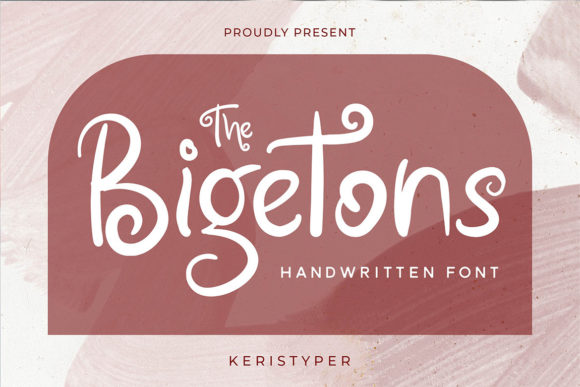
Bigetons Font: The Ultimate Choice for Bold and Fun Designs
Are you looking for a font that can add a touch of boldness and fun to your designs? Look no further than Bigetons Font! Born from a bold and fun style, Bigetons is a versatile font that can be used for a wide range of design projects, from logo design to social media graphics, movie titles, book titles, and more.
What Makes Bigetons Font Special?
Bigetons Font is a unique and eye-catching font that is designed to make your designs stand out. Its bold and fun style makes it perfect for creating attention-grabbing headlines, titles, and logos. The font is also highly versatile, making it suitable for use in a variety of design projects, including:
- Logo design: Bigetons Font is perfect for creating bold and memorable logos that will help your brand stand out.
- Social media: Use Bigetons Font to create eye-catching social media graphics that will grab the attention of your followers.
- Movie titles: Add a touch of glamour and sophistication to your movie titles with Bigetons Font.
- Book titles: Make your book titles stand out with Bigetons Font’s bold and fun style.
- Short text and long text letters: Bigetons Font is suitable for use in both short and long text letters, making it a versatile choice for a wide range of design projects.
The Benefits of Using Bigetons Font
There are many benefits to using Bigetons Font in your designs. Some of the key benefits include:
- Attention-grabbing: Bigetons Font is designed to grab attention and make your designs stand out.
- Versatile: Bigetons Font can be used in a wide range of design projects, from logo design to social media graphics.
- Easy to read: Despite its bold style, Bigetons Font is easy to read, making it suitable for use in both short and long text letters.
- Customizable: Bigetons Font can be customized to fit your brand’s unique style and aesthetic.
Pairing Bigetons Font with Other Fonts
Bigetons Font can be paired with a variety of other fonts to create a unique and visually appealing design. Some popular font pairing options include:
- Sans serif fonts: Pairing Bigetons Font with a sans serif font, such as Arial or Helvetica, can create a clean and modern look.
- Serif fonts: Pairing Bigetons Font with a serif font, such as Times New Roman or Georgia, can create a more traditional and elegant look.
Design Tips for Using Bigetons Font
Here are some design tips to keep in mind when using Bigetons Font:
- Use it sparingly: Bigetons Font is a bold font, so it’s best to use it sparingly to avoid overwhelming the reader.
- Experiment with colors: Bigetons Font looks great in a variety of colors, so don’t be afraid to experiment and find the perfect color for your design.
- Pay attention to font size: Make sure to adjust the font size of Bigetons Font according to the design project. For example, a larger font size may be more suitable for a movie title, while a smaller font size may be more suitable for a social media graphic.
Examples of Bigetons Font in Use
Bigetons Font can be used in a wide range of design projects. Here are some examples:
- Logo design: Bigetons Font can be used to create a bold and memorable logo for a company or brand.
- Social media graphics: Bigetons Font can be used to create eye-catching social media graphics, such as Facebook posts, Instagram stories, and Twitter headers.
- Movie titles: Bigetons Font can be used to create bold and attention-grabbing movie titles.
- Book titles: Bigetons Font can be used to create eye-catching book titles that will stand out on bookshelves.
In conclusion, Bigetons Font is a versatile and eye-catching font that can be used in a wide range of design projects. Its bold and fun style makes it perfect for creating attention-grabbing headlines, titles, and logos. With its ease of use, customizability, and versatility, Bigetons Font is a great choice for designers looking to add a touch of boldness and fun to their designs.